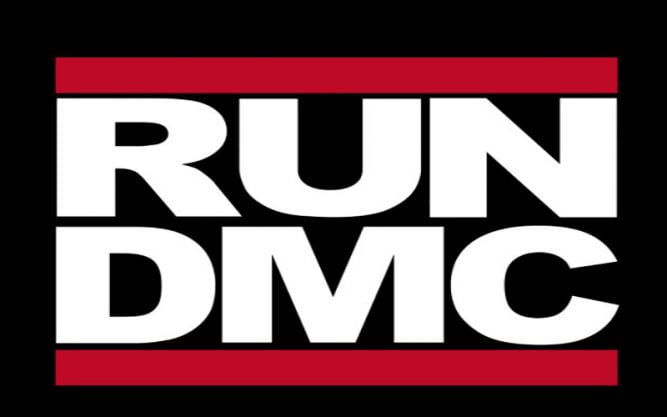
You can find more information about this below. I like the idea of this old font being on a poster that suits it in that way, and the large text really brings the font to focus. Your name will look heavy as hell.
Franklin gothic heavy is the font resembling the font used in the original run dmc logo. Grotesque mt std light condensed commercial fonts. Chub gothic regular font this font was posted on 06 may 2015 and is called chub gothic regular font.
With this image size i used a font size of 150pt. Free for personal or commercial use. Franklin gothic heavy is the font resembling the font used in the original run dmc logo.
Frint heavy suggested by mr_stoo. I need the font of the famous run dmc logo ! What font is used in run dmc logo?
I created this do it yourself run dmc kit. You can find more sans serif fonts. Download the free font replicating the logo from the music group metallica and many more at the original famous fonts!
Lgf avadar extra bold download lgf avadar extra bold similar free fonts for lgf avadar extra bold font. This font also belongs to the sans serif font category. The logo of the band features a grotesque sans serif typeface, which is probably franklin gothic originally designed by morris fuller benton in 1902.
The logo of the band features a grotesque sans serif typeface, which is probably franklin gothic. Revive 80 designed by tom chalky is an amazing font family including eight cohesive fonts.this super versatile font family is perfect for your creative designs and can create a vintage look. With this image size i used a font size of 150pt.
The logo of the band features a grotesque sans serif typeface, which is probably franklin gothic originally designed by morris fuller benton in 1902.